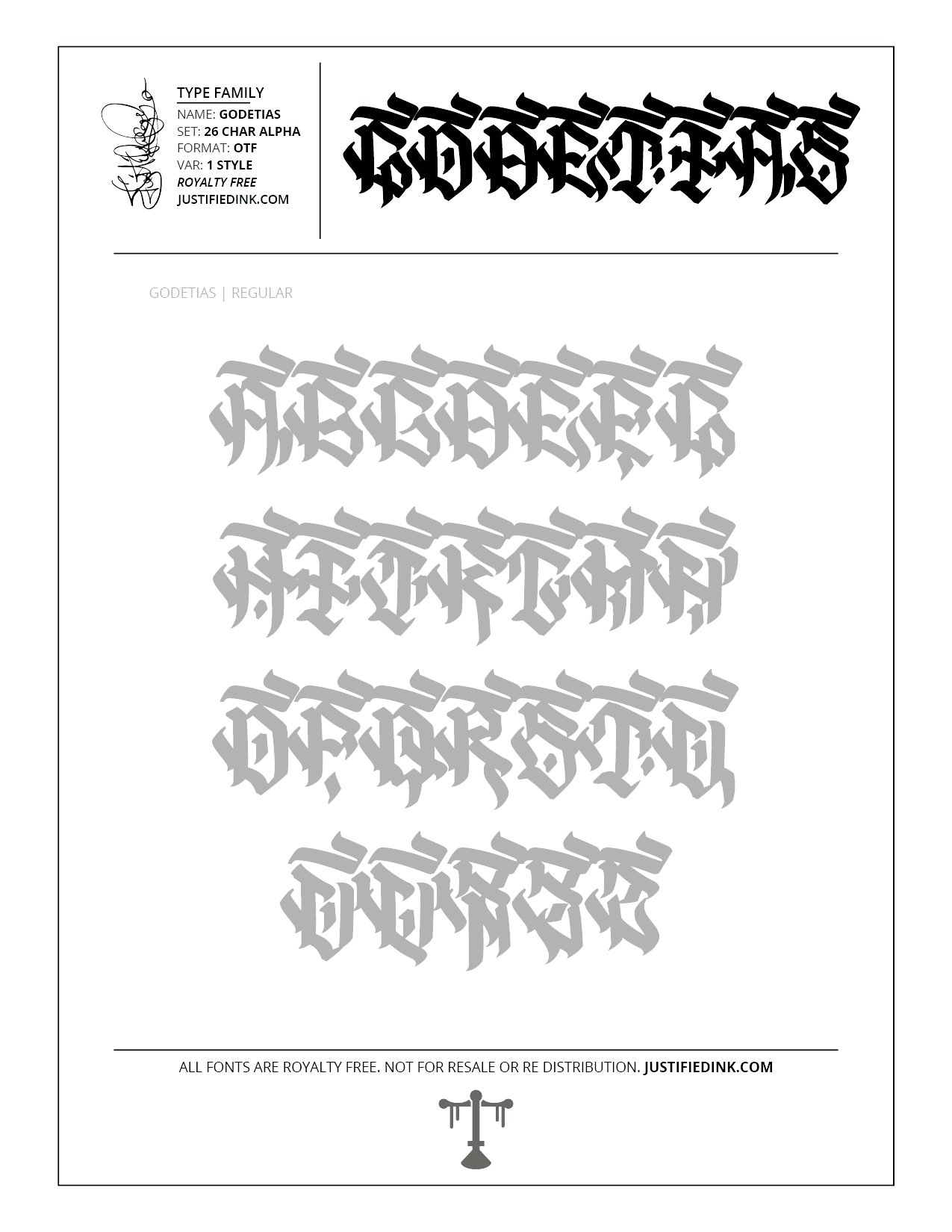
Godetias (1 style) - Custom Font by Justified Ink
NAME: Godetias
Godetias is loosely dedicated to the flower by the same. Across each letter is a flourishing stroke, while the letterforms are composed of longer, sharper stemlike downstrokes to plant each letter firmly on the baseline.
This font is part of the collection by Justified Ink, called Blackletter II. After 15+ years creating, I began to focus on building personal libraries of my work. The Blackletter II Collection was created through writing page after page, and countless hours over a 2 year span of daily practice. Each font from this collection has been hand drawn, manually vectored, and custom set as a type-able font. It comes in a full set of 26 char alpha. Each font family has variations in styles and/or non-alpha chars.